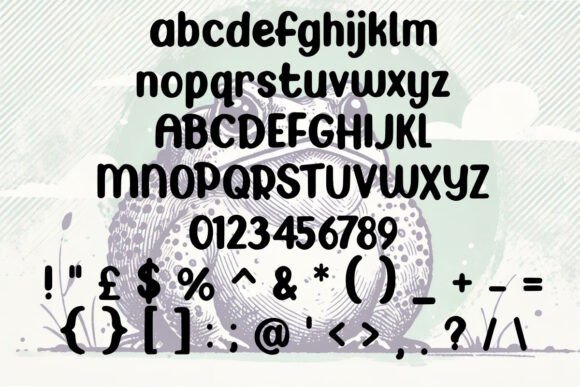
Puffed Up Toad Font: The Playful and Puffy Typeface for Your Designs
Are you looking for a font that can add a touch of playfulness and whimsy to your designs? Look no further than the Puffed Up Toad font! This delightful typeface is perfect for kids’ projects, playful branding, and any design that needs a light, bouncy, and slightly dramatic feel. In this article, we’ll take a closer look at the Puffed Up Toad font, its features, and how you can use it to elevate your designs.
What is Puffed Up Toad Font?
Puffed Up Toad is a chubby, playful, and delightfully puffy font that looks like it just took a deep breath and isn’t letting go. With its rounded, soft edges and slightly exaggerated letterforms, this font is full of personality—like a toad puffing itself up to make a statement!
Uses for Puffed Up Toad Font
Puffed Up Toad font is perfect for a variety of design projects, including:
- Kids’ projects: The playful and whimsical nature of Puffed Up Toad font makes it ideal for kids’ books, educational materials, and other projects aimed at a young audience.
- Playful branding: If you’re looking to create a brand that’s fun, lighthearted, and playful, Puffed Up Toad font is a great choice.
- Signage and displays: The bold and puffy nature of Puffed Up Toad font makes it perfect for signage and displays that need to grab attention.
- Digital media: Puffed Up Toad font can add a touch of personality to your digital media, including social media graphics, videos, and presentations.
Benefits of Using Puffed Up Toad Font
There are several benefits to using Puffed Up Toad font in your designs, including:
- Unique personality: Puffed Up Toad font has a unique and playful personality that can help your designs stand out.
- Versatility: Puffed Up Toad font can be used for a variety of design projects, from kids’ books to playful branding.
- Easy to read: Despite its playful nature, Puffed Up Toad font is easy to read, making it perfect for body text and headlines.
Design Tips for Using Puffed Up Toad Font
Here are some design tips to keep in mind when using Puffed Up Toad font:
- Use it sparingly: While Puffed Up Toad font is playful and fun, it can be overwhelming if used too much. Use it sparingly to add a touch of personality to your designs.
- Pair it with a simple font: Pair Puffed Up Toad font with a simple font to create contrast and add visual interest to your designs.
- Experiment with colors: Puffed Up Toad font looks great in bright, bold colors. Experiment with different colors to find the perfect combination for your design.
Alternatives to Puffed Up Toad Font
If you’re looking for alternative fonts to Puffed Up Toad, here are a few options:
- Bubblegum: Bubblegum is a playful and whimsical font that’s similar to Puffed Up Toad.
- Candy: Candy is a sweet and playful font that’s perfect for kids’ projects and playful branding.
- Friendly: Friendly is a clean and simple font that’s perfect for body text and headlines.
Frequently Asked Questions about Puffed Up Toad Font
Here are some frequently asked questions about Puffed Up Toad font:
- What is Puffed Up Toad font? Puffed Up Toad font is a playful and puffy font that’s perfect for kids’ projects, playful branding, and other designs that need a light, bouncy feel.
Puffed Up Toad font is a playful and puffy typeface that’s perfect for adding a touch of personality to your designs. With its rounded, soft edges and slightly exaggerated letterforms, this font is full of personality and can help your designs stand out. Whether you’re designing for kids’ projects, playful branding, or just want a font that feels light, bouncy, and a little bit dramatic, Puffed Up Toad font is here to hop into your designs!